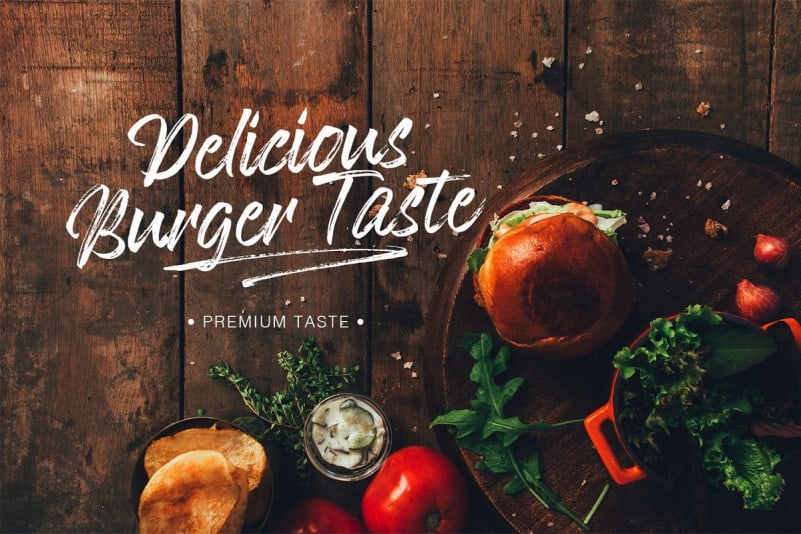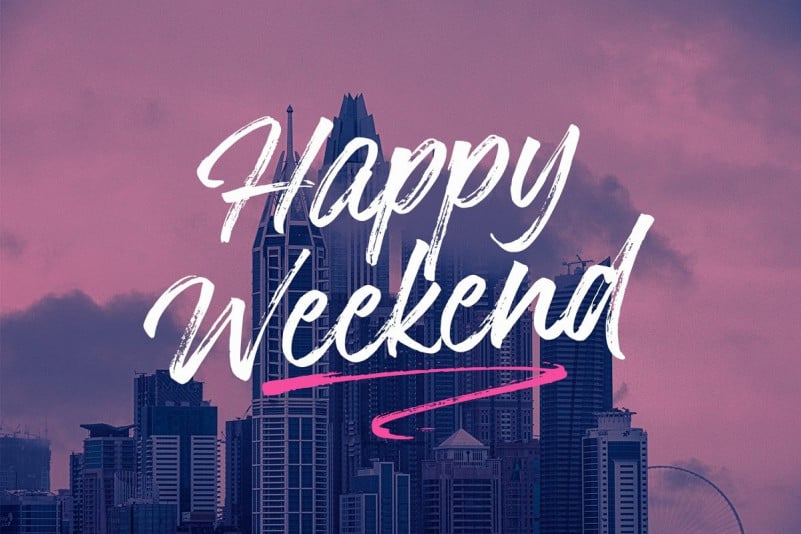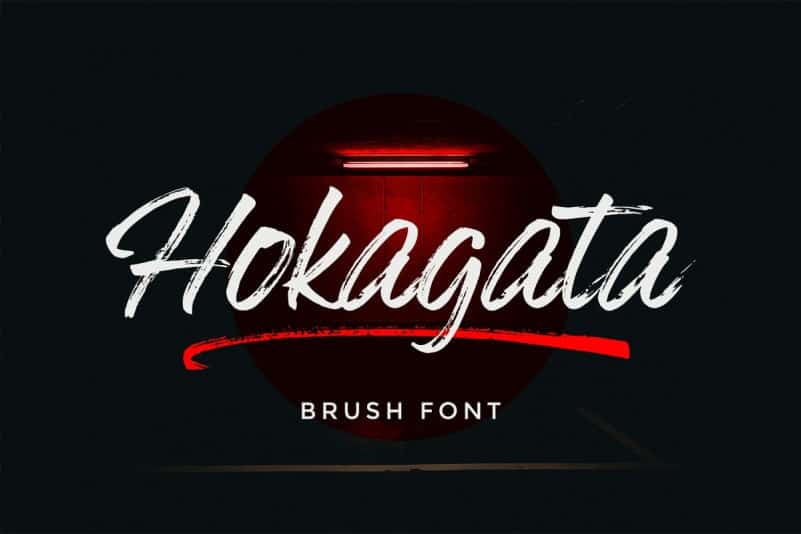
Hello guys… Hokagata Brush Font a natural brush typeface. It’s designed and shared by Fargun Studio. Handwritten font with quick dry strokes and a signature style. perfect for branding projects, home ware designs, product packaging or simply as a stylish text overlay to any background image or posters.